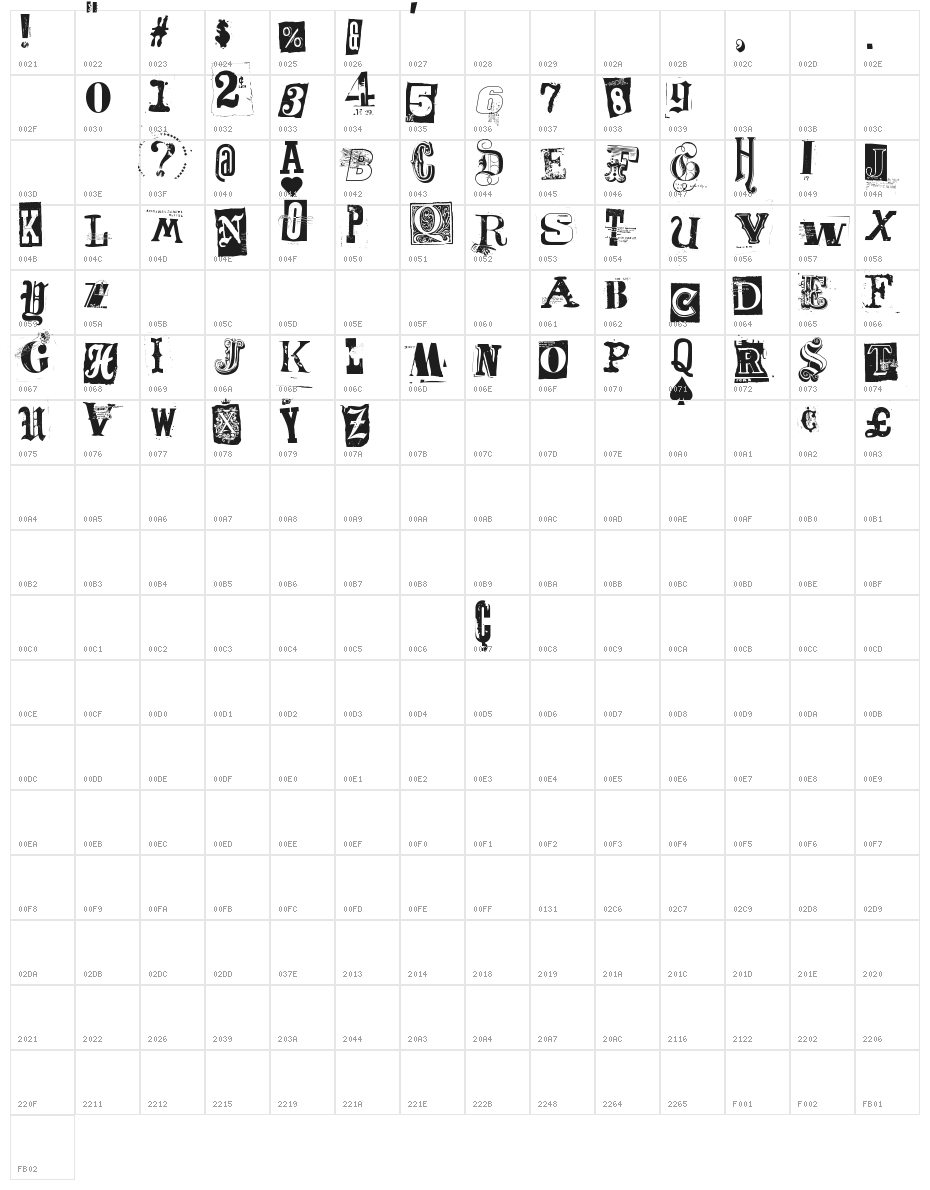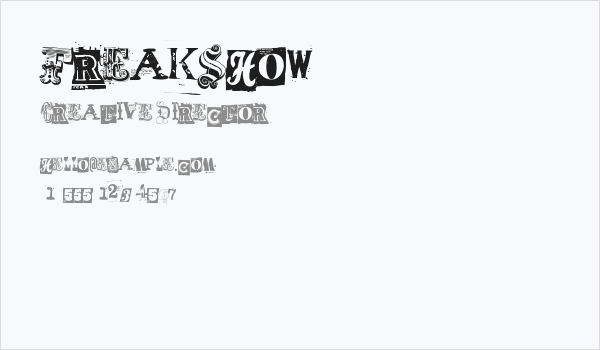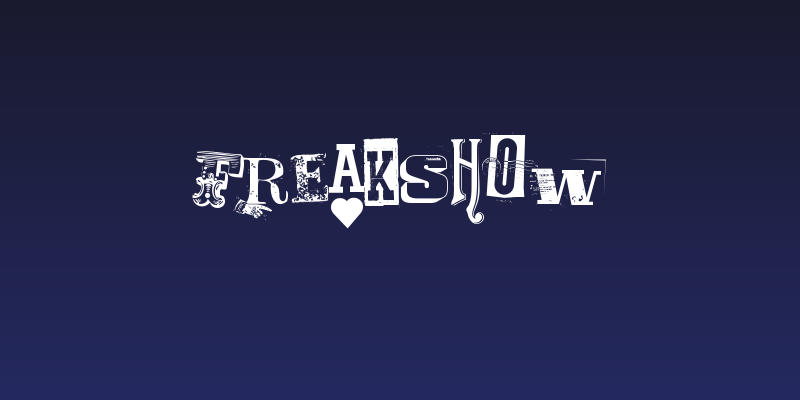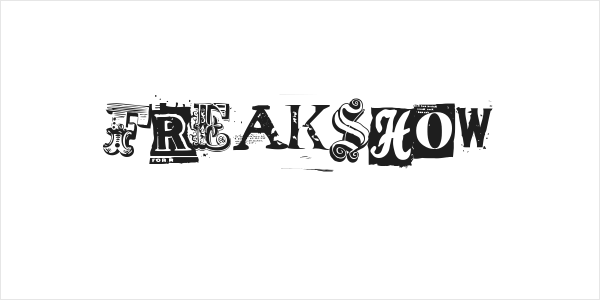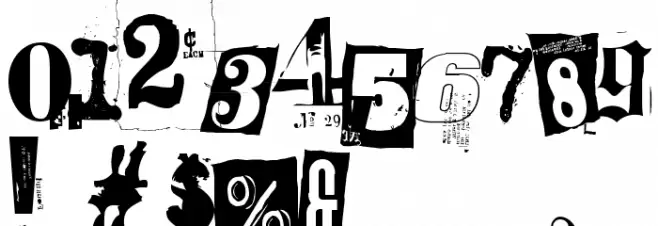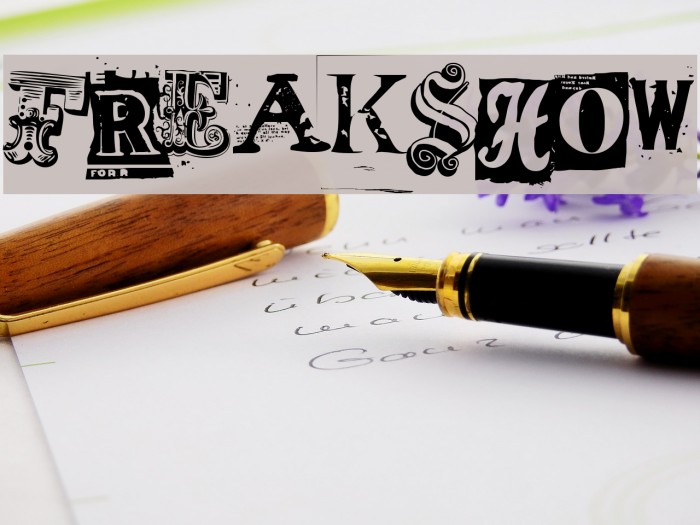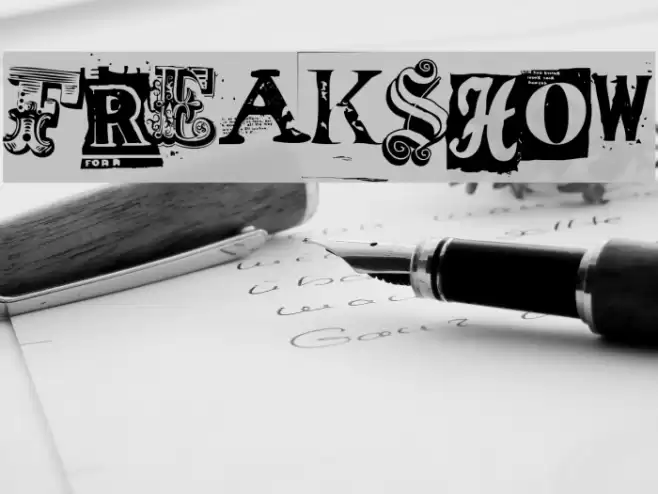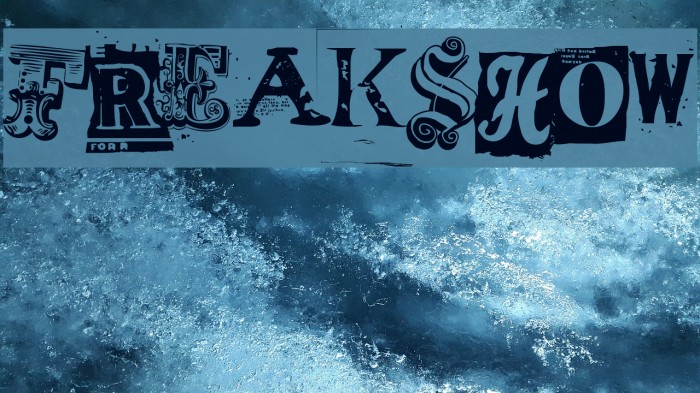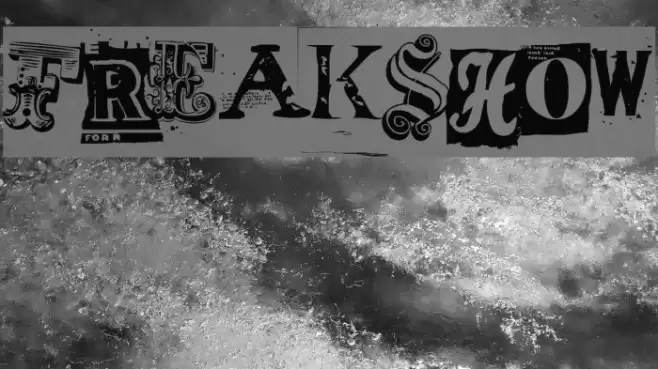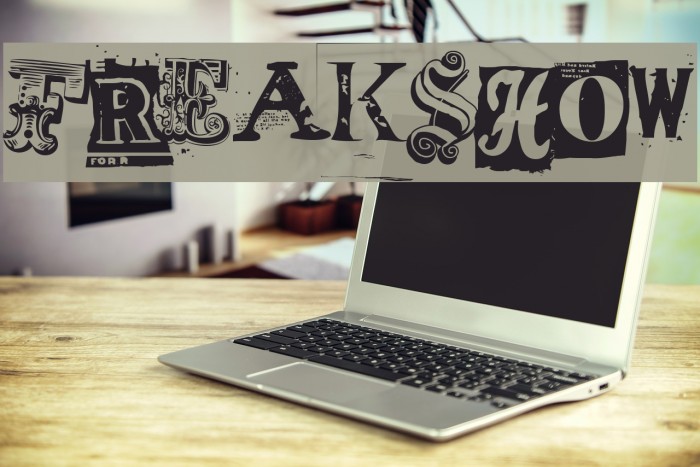
Freakshow Font
Freakshow Description
This font is a highly decorative and eclectic typeface that combines various styles and elements, creating a visually striking and unique appearance. Each character is distinct, featuring ornate details, intricate patterns, and bold shapes. The font exhibits a vintage and theatrical vibe, reminiscent of old circus posters or carnival themes. Its elaborate design makes it ideal for projects that require a dramatic and eye-catching look. The characters are a mix of serif and sans-serif styles, with some incorporating flourishes and embellishments that add to the overall complexity and charm.
| Overall Style | Vintage, Theatrical, Decorative |
| Use Case | Headlines, Posters, Logos |
| Proposed Projects | Ideal for posters, event invitations, theatrical productions, and any project needing a bold, vintage aesthetic. |